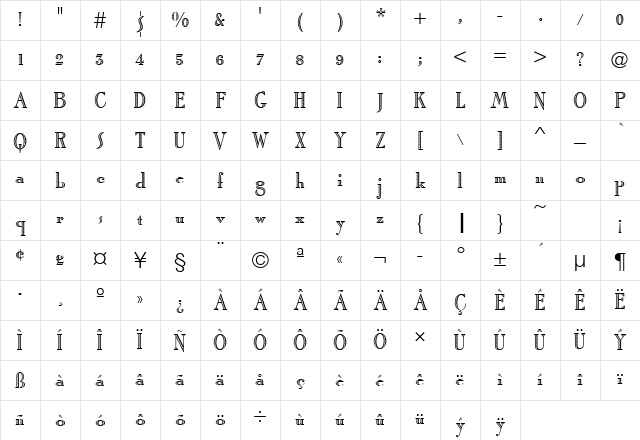
RomanShaAltD Regular
Design Context for RomanShaAltD
RomanShaAltD is a composed and adaptable typeface that performs quietly and consistently across a wide range of design contexts.
Pro Tip: Use RomanShaAltD in both headline and body roles to test its range before committing to a single application.